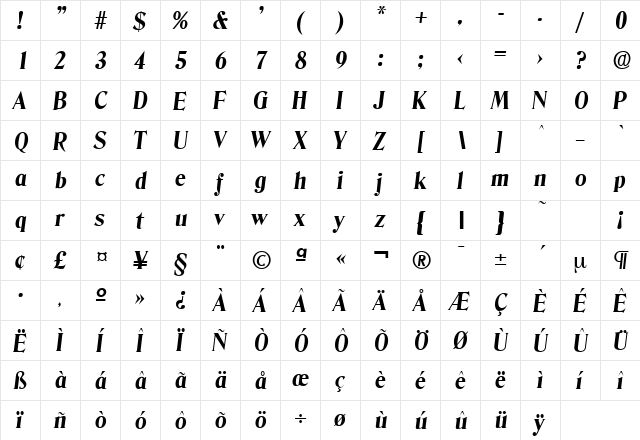
Denver-Serial-ExtraBold RegularItalic Font Preview
Design Context for Denver-Serial-ExtraBold Typeface
Denver-Serial-ExtraBold takes a measured approach to typography — its balanced proportions and neutral character make it a reliable workhorse for both digital and print work. The dynamic lean of this cut emphasises speed and emphasis in any layout. Its bold stroke weight gives it real presence on the page.
Pro Tip: Use Denver-Serial-ExtraBold for emphasis, pull quotes, and subheadings where its slanted energy can add rhythm to the layout.